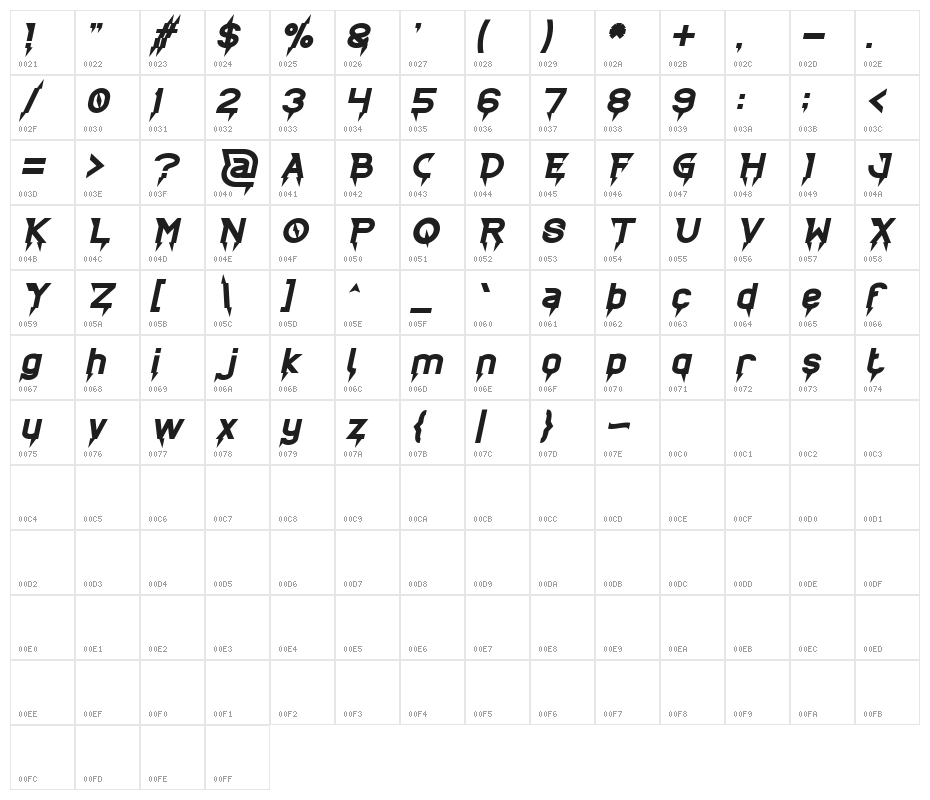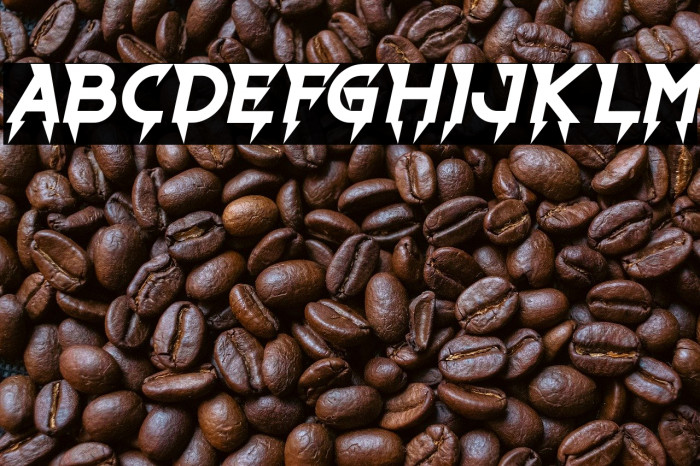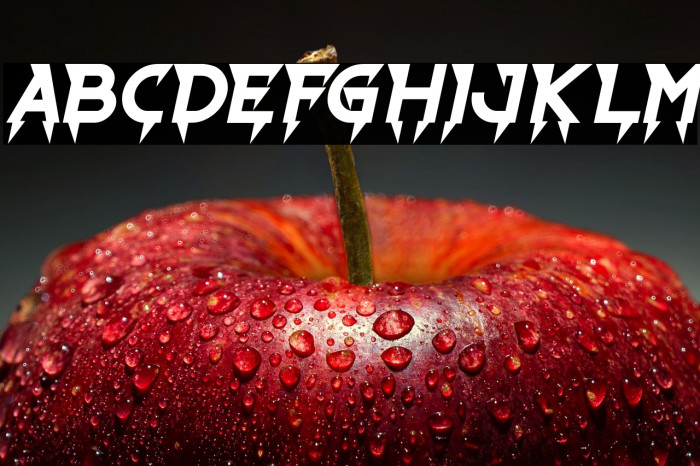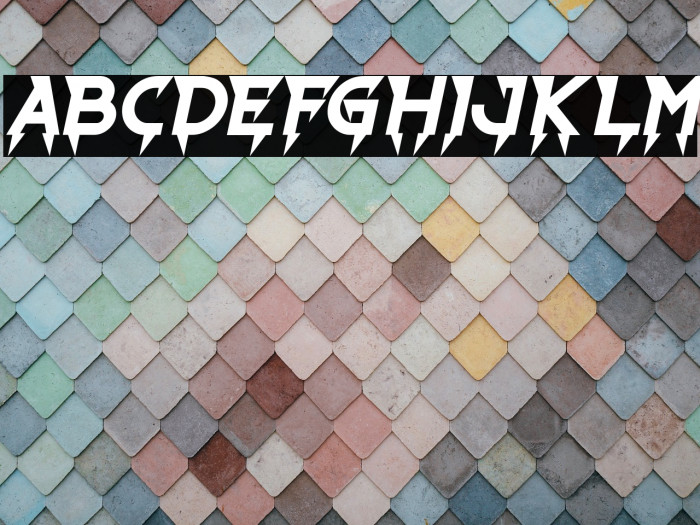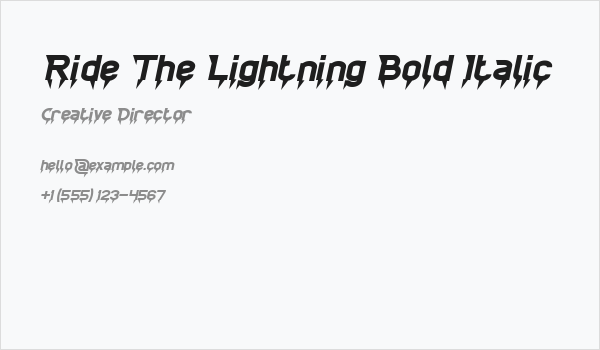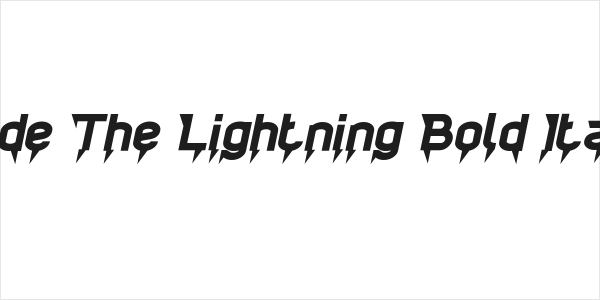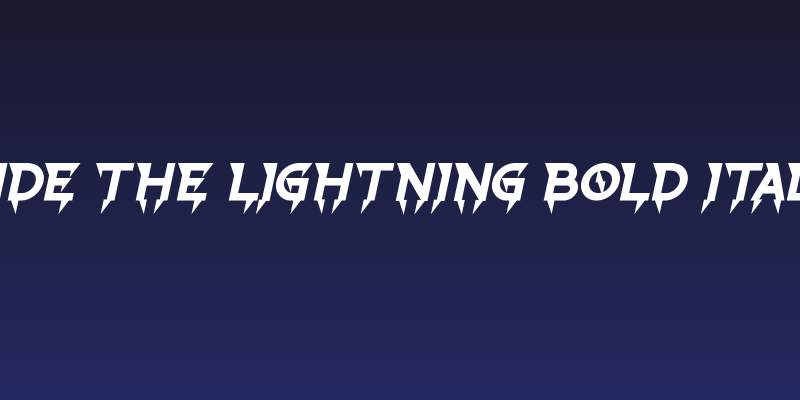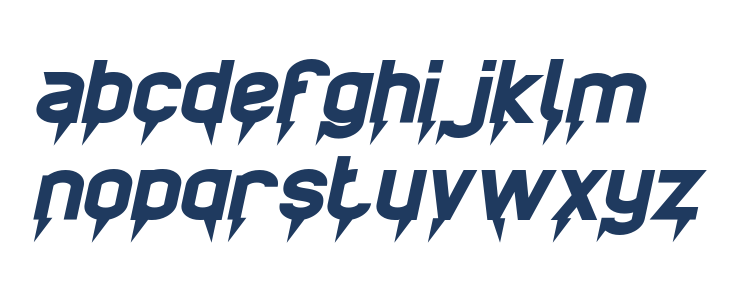
Ride The Lightning Bold Italic Font
Ride The Lightning Bold Italic Description
This font features a bold and italicized style with a distinct, electrifying design. The characters are sharply angled, giving a dynamic and energetic appearance reminiscent of lightning bolts. The uppercase and lowercase letters maintain a consistent slant, enhancing the sense of motion and speed. Numbers and special characters follow the same bold and striking aesthetic, making them stand out prominently. The overall design is highly decorative, perfect for projects that require a strong visual impact.
| Proposed Projects | Ideal for music album covers, event posters, branding for energy drinks, or any project needing a high-impact, electrifying look. |